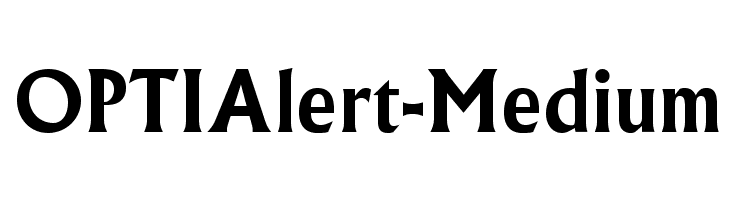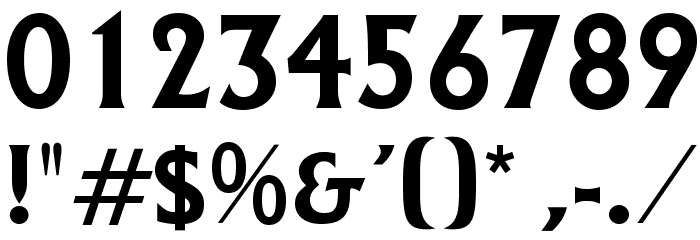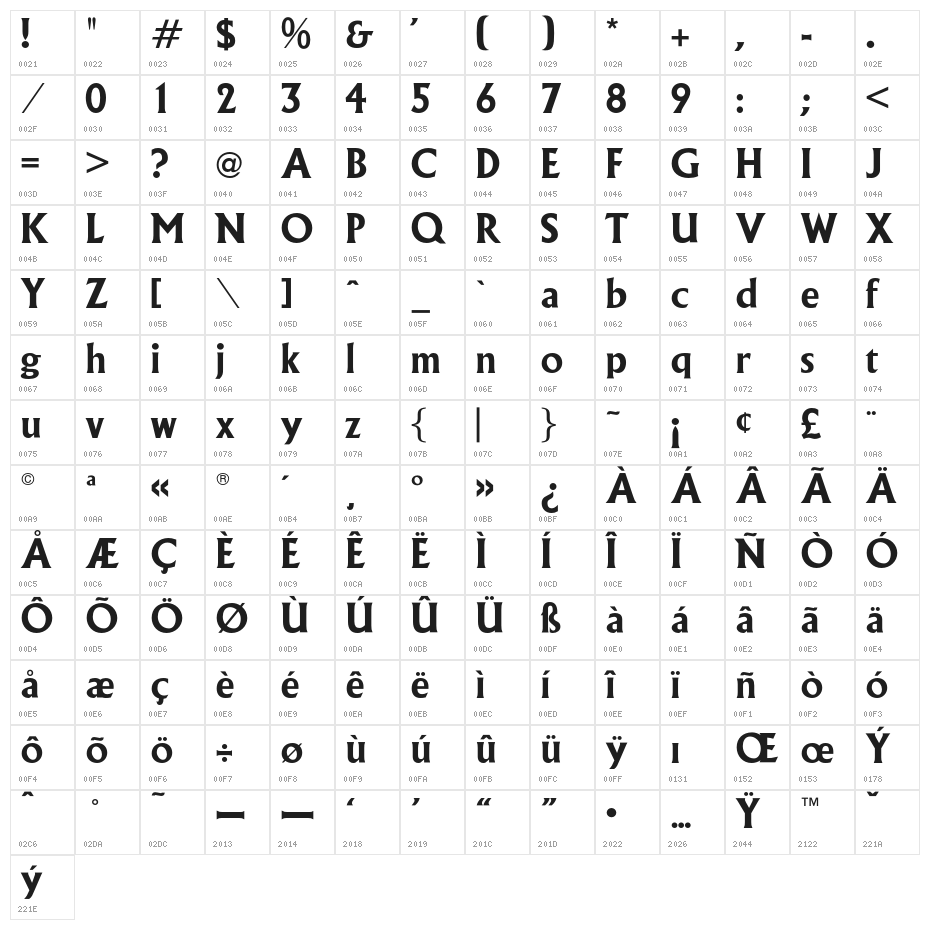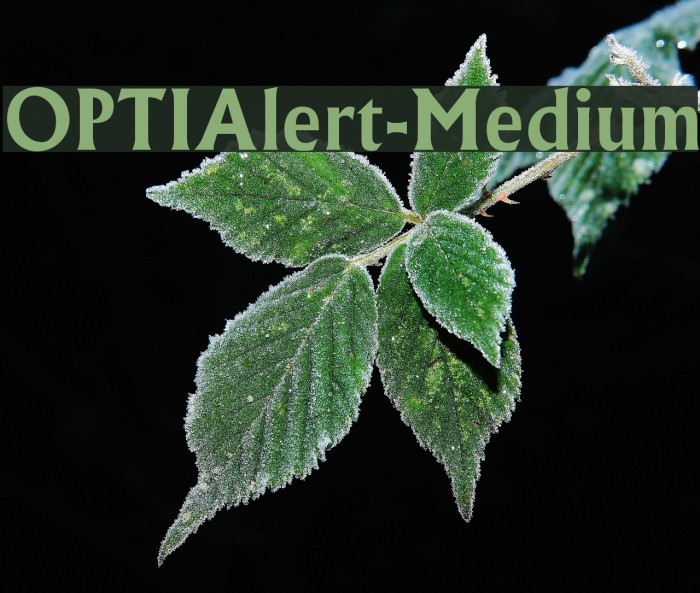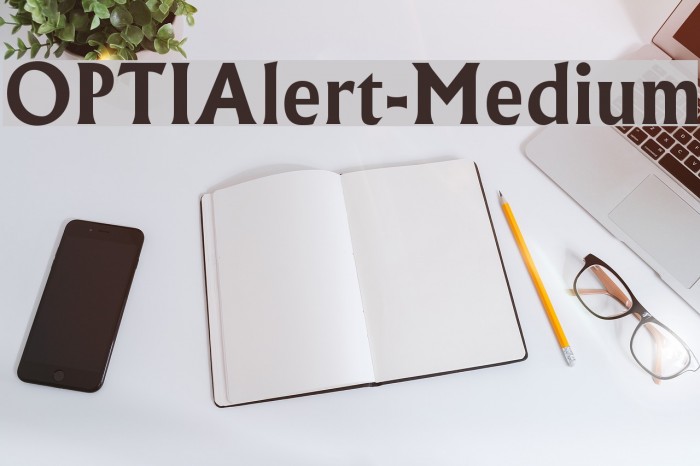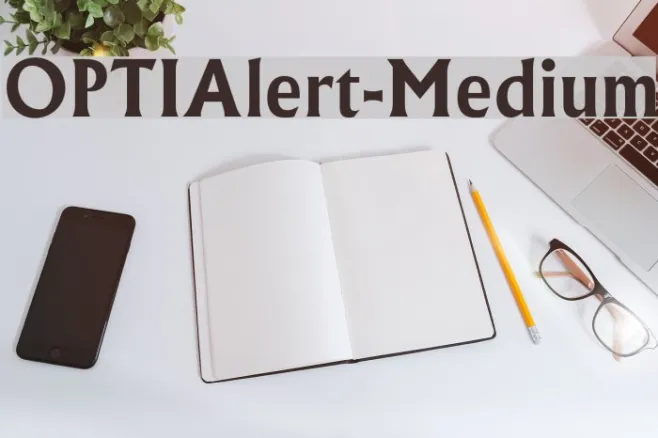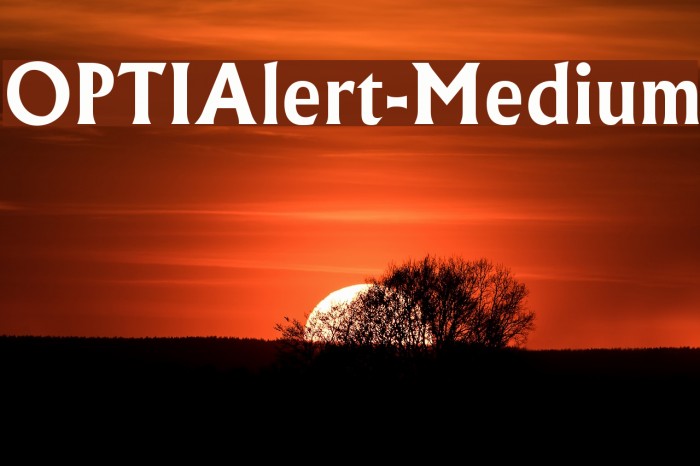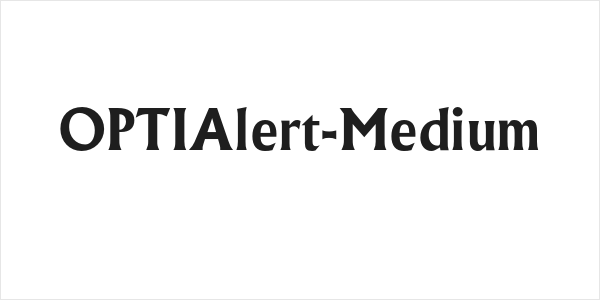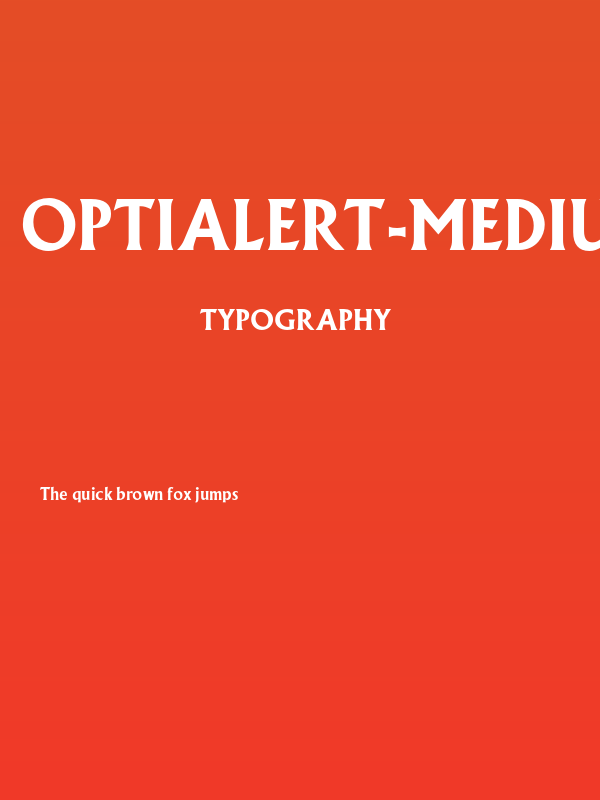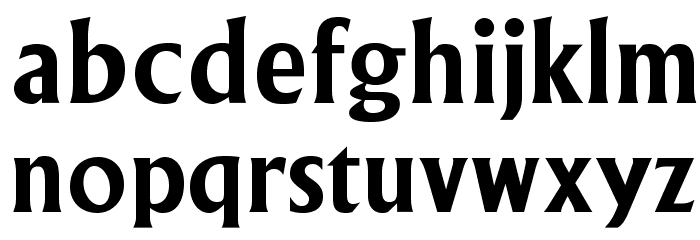
OPTIAlert-Medium Font
OPTIAlert-Medium Description
This font features a bold and assertive style with a strong presence, characterized by its thick strokes and slightly condensed letterforms. The uppercase letters exhibit a commanding appearance, while the lowercase letters maintain a consistent weight, ensuring readability. The numerals are robust and align well with the overall design, making them suitable for impactful displays. Special characters are crafted with precision, adding to the font's versatility. The font's design is well-suited for projects that require a bold statement, combining traditional serif elements with a modern twist.
| Proposed Projects | Ideal for headlines, branding, posters, and any design requiring a strong visual impact. |